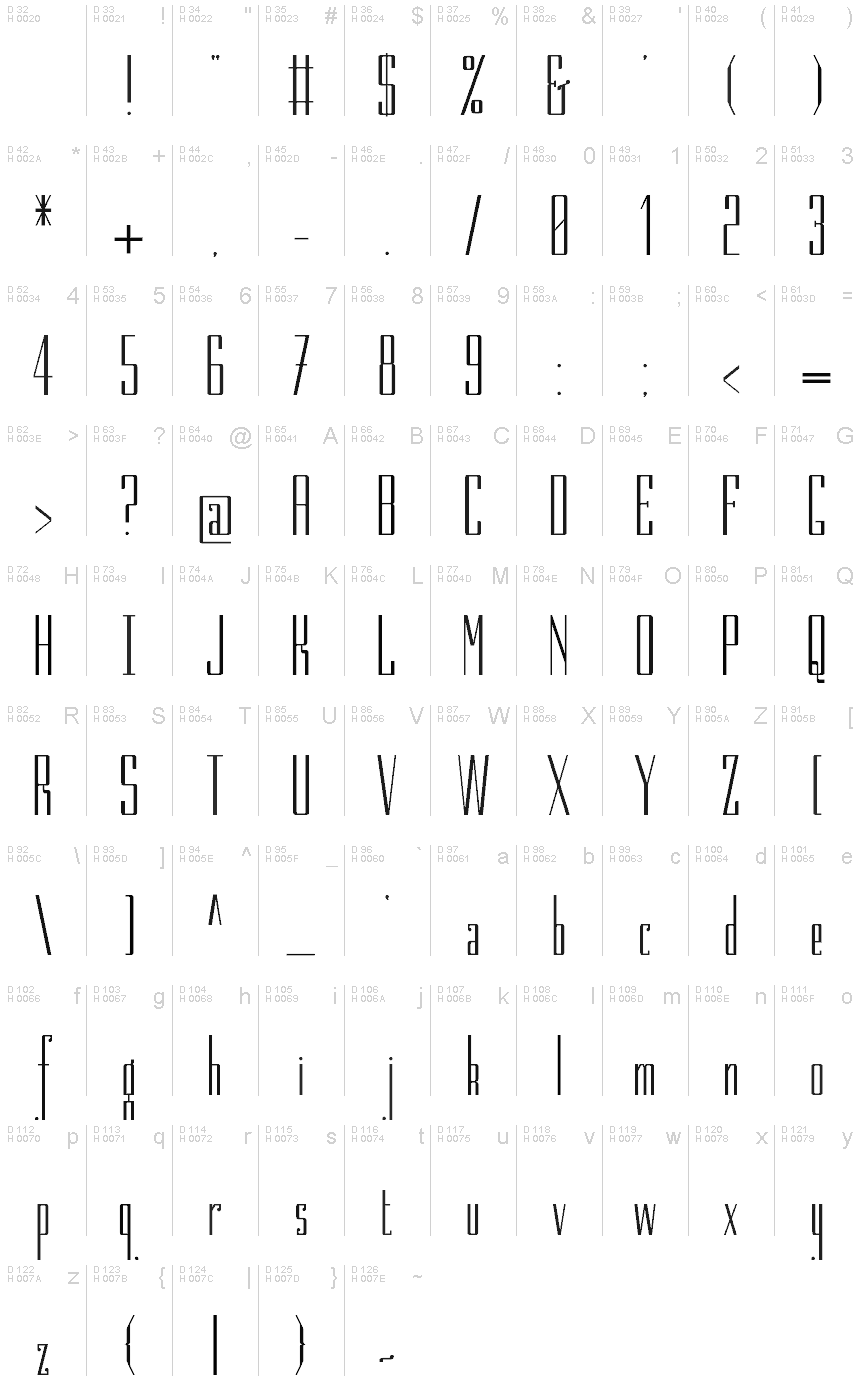
Mete
Mete is a captivating sans-serif typeface crafted by designer Mete. Drawing inspiration from the decorative curves of Arabic calligraphy and the geometric simplicity of street signage, this font exudes a harmonious blend of cultural influences. Its tall, striking characters command attention, making it a versatile choice for diverse design applications.
The font's condensed width and light weight lend it a refined, modern aesthetic. The seamless integration of decorative and geometric elements creates a visually striking, yet legible typeface that can elevate any project with its unique personality.
Mete's versatility shines through, making it an excellent choice for online and offline magazines, books, posters, photography, websites, branding and identity projects, TV spots, and a wide range of other creative endeavors. This typeface's captivating blend of global inspiration and contemporary design sensibilities ensures it will leave a lasting impression on audiences.
The font's condensed width and light weight lend it a refined, modern aesthetic. The seamless integration of decorative and geometric elements creates a visually striking, yet legible typeface that can elevate any project with its unique personality.
Mete's versatility shines through, making it an excellent choice for online and offline magazines, books, posters, photography, websites, branding and identity projects, TV spots, and a wide range of other creative endeavors. This typeface's captivating blend of global inspiration and contemporary design sensibilities ensures it will leave a lasting impression on audiences.